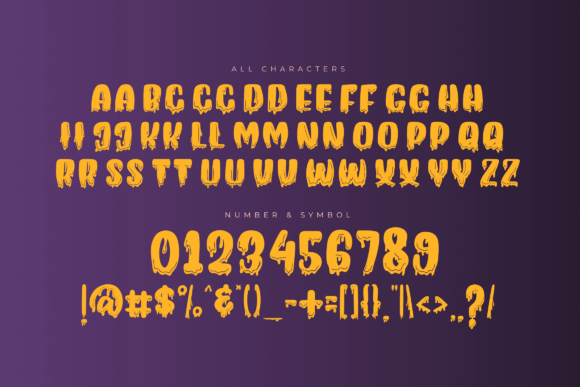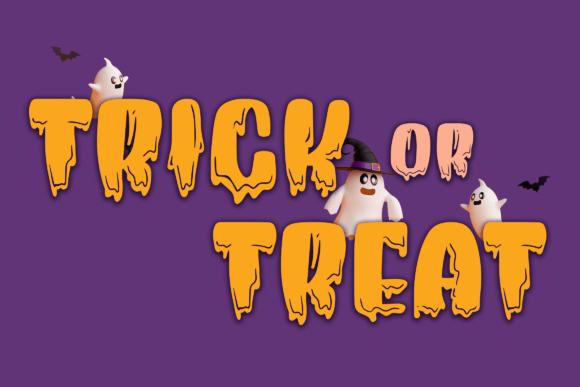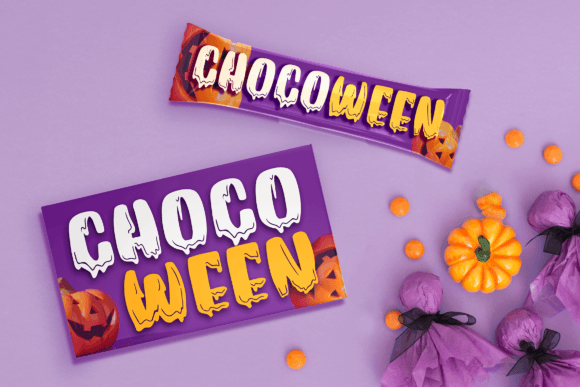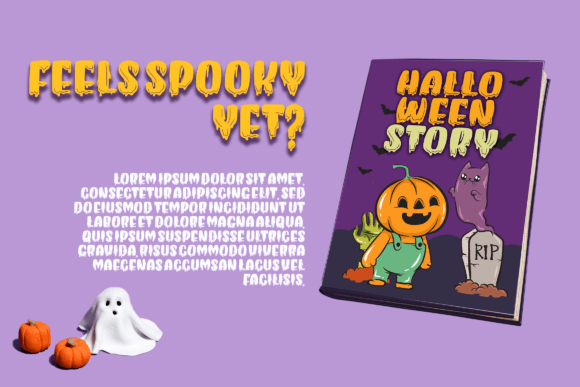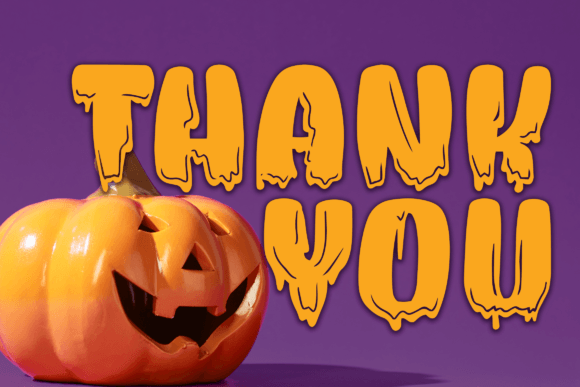
Unleashing the Spooky Spirit: The Halloween Dripper Font
As the sun sets on a crisp autumn evening, the air is filled with an eerie sense of excitement. The jack-o-lanterns are lit, the cobwebs are hung, and the thrill of Halloween is in full swing. It’s the perfect time to unleash your creativity and let the spooky spirit guide your design.
Enter the “Halloween Dripper” font, a typographical masterpiece inspired by the eerie atmosphere of horror and thriller movie posters from the old era. This font is a treasure trove of creative possibilities, designed to help you craft special and touching typographical designs for your horror and dark projects. Whether you’re a seasoned designer or a budding artist, the “Halloween Dripper” font is a valuable addition to your toolkit, offering endless possibilities for branding, labeling, clothing, movie titles, and more.
Halloween Dripper Font Key Features
- Unique Characteristics: The Halloween Dripper Font features a spooky and playful design with drips of blood and other Halloween-themed elements, making it perfect for designs related to the holiday.
Halloween Dripper Font Review
Overall, I think the Halloween Dripper Font is a great addition to any spooky-themed project. The font is full of personality and can really help set the tone for a Halloween-themed project.
- ✨ The font has a great balance of playful and spooky elements. It’s perfect for creating a fun and festive atmosphere.
- ✨ The font is highly customizable, with a wide range of color options and sizes to choose from.
- ✨ The font is also highly legible, even at smaller sizes.
- ⚠️ The font may not be suitable for more formal or traditional Halloween projects. It’s best suited for more playful and whimsical designs.
- ⚠️ The font may not be as versatile as other fonts, and may not work well in certain design contexts.
- ⚠️ Some users may find the font a bit too ornate or cluttered.
Overall, I think the Halloween Dripper Font is a great choice for designers looking to add a touch of spooky fun to their projects. While it may not be the best choice for every project, it’s definitely a unique and eye-catching option that can really help stand out.
Halloween Dripper Font: A Practical Application Guide
Use the Halloween Dripper Font to create spooky and eerie designs, perfect for Halloween-themed projects. You can also use it to add a touch of whimsy and playfulness to your designs.
The Halloween Dripper Font is perfect for:
- Halloween party invitations and decorations.
- Spooky-themed social media graphics.
- Creepy and eerie book covers and marketing materials.